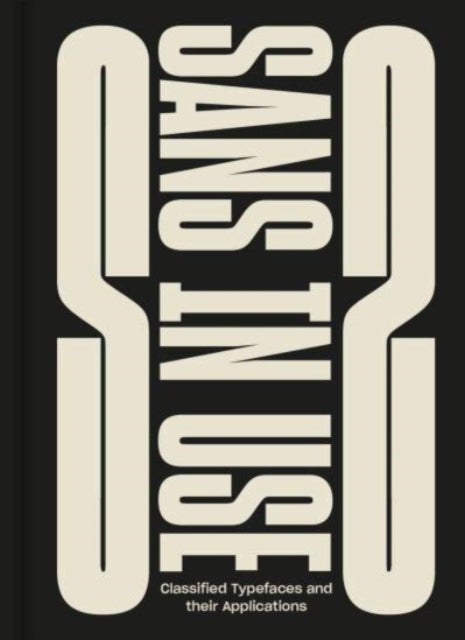
Sans In Use: A Collection of Sans Serif Typefaces
Sans in Use and Serif in Use showcase creative pairings and ingenious applications of serif and sans serif typefaces, inspiring type designers and lovers. They collate the best combinations and serve as a reference point for inspiration.
Sans in Use and Serif in Use are two comprehensive books that showcase the creative pairings and ingenious applications of serif and sans serif typefaces. These books serve as a valuable reference point for both type designers and type lovers, providing insight into the world of typography and inspiring designers to create stunning designs.
In the world of typography, it is not uncommon to see combinations of serif and sans serif typefaces in the same design. However, it takes skill to combine them in order to avoid tension and clashes, and ensure maximum readability of the text in the design. From font weights to classifications, each font has its own distinct personality, and should be carefully paired to convey the right tone and mood of the design.
Featuring a selection of type specimens, their design applications, and the thoughts that go behind the craft, Sans in Use / Serif in Use collates the best combinations of the two typeface categories and serves as a reference point for inspiration-seeking designers and typographers alike.
Sans in Use explores the use of sans serif typefaces in various design contexts, from digital interfaces to print publications. It features a wide range of examples, showcasing the versatility and adaptability of sans serif typefaces in modern design. The book also delves into the history and development of sans serif typefaces, providing insight into the design principles that guide their creation.
Serif in Use, on the other hand, focuses on the use of serif typefaces in design. It features a selection of classic and contemporary serif typefaces, each with its own unique characteristics and applications. The book also provides tips and techniques for using serif typefaces effectively, such as pairing them with other typefaces, adjusting font sizes, and creating contrast.
Both Sans in Use and Serif in Use are beautifully designed books that showcase the craftsmanship and creativity of type designers. They provide a wealth of information and inspiration for designers looking to enhance their typography skills and create stunning designs. Whether you are a seasoned designer or just starting out, these books are a must-have for anyone interested in typography and design.